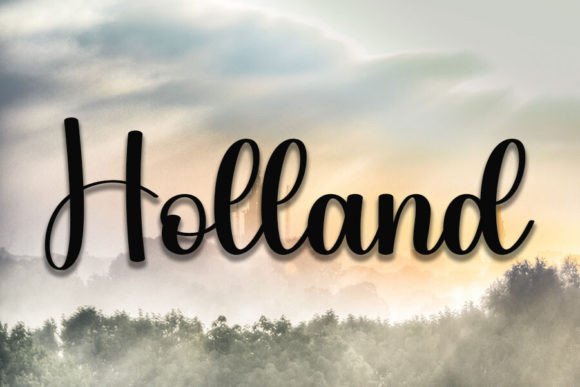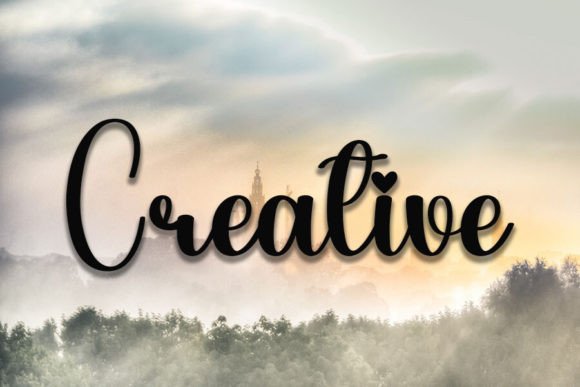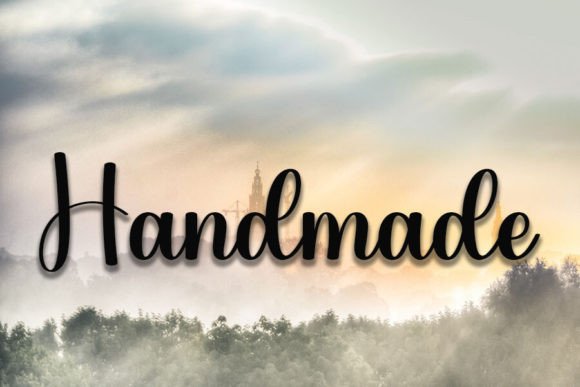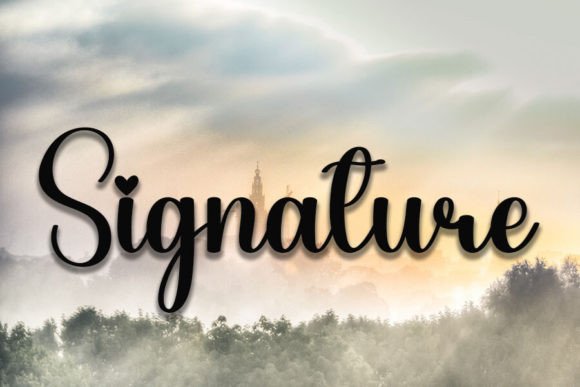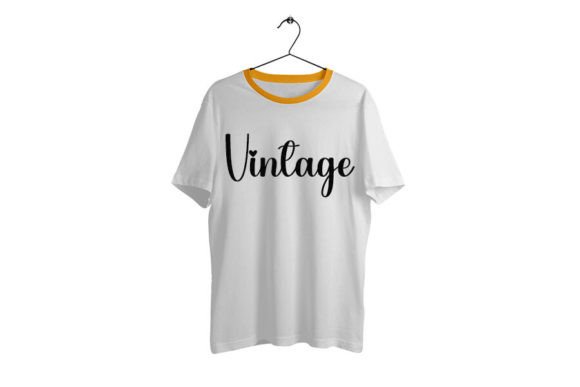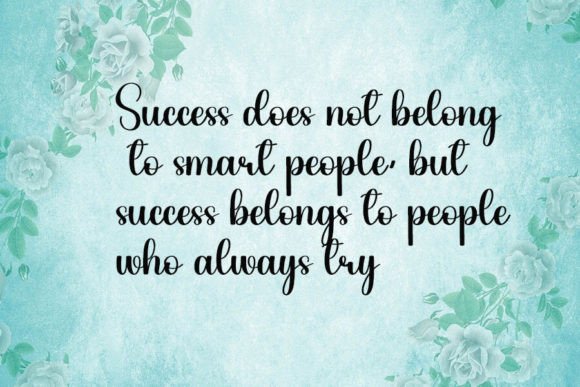
Discover the Elegance of Belanda Font: Elevate Your Designs with Timeless Style
Are you on the hunt for a font that exudes elegance, sophistication, and a touch of handmade charm? Look no further than the Belanda Font, a stunning handwritten typeface that is sure to capture your heart. With its incredibly distinct and timeless style, Belanda is the perfect addition to any design project, from crafting and stationery to digital media and branding.
The Characteristics of Belanda Font
Belanda Font is described by its neat and beautiful handwritten aesthetic, characterized by an elegant touch that sets it apart from other fonts. Its unique style is both classic and modern, making it versatile enough to be used in a wide range of applications. Whether you’re creating wedding invitations, packaging, or social media graphics, Belanda’s charm and sophistication will shine through.
Why Designers and Crafters Love Belanda
So, what makes Belanda Font a favorite among designers and crafters? Here are just a few reasons why this font has become a go-to choice for creatives:
- Elegant and Refined: Belanda’s elegant touch adds a level of sophistication to any design, making it perfect for projects that require a touch of luxury.
- Versatile: From digital media to print materials, Belanda’s versatility makes it suitable for a wide range of applications.
- Timeless: Unlike trendy fonts that quickly go out of style, Belanda’s classic aesthetic ensures it remains relevant and stylish for years to come.
- Easy to Read: Despite its elegant nature, Belanda remains clear and easy to read, making it perfect for body text and headings.
Using Belanda Font in Your Designs
One of the best things about Belanda Font is its ease of use. Whether you’re a seasoned designer or a crafting novice, incorporating Belanda into your projects is simple and straightforward. Here are a few ideas to get you started:
- Wedding Stationery: Add a touch of romance and elegance to your wedding invitations, save-the-dates, and thank-you cards.
- Branding and Packaging: Use Belanda to create eye-catching logos, labels, and packaging that stands out from the crowd.
- Digital Media: Incorporate Belanda into your social media graphics, blog headers, and email newsletters for a professional and stylish look.
- Crafting and Scrapbooking: Add a personal touch to your crafting and scrapbooking projects with Belanda’s beautiful handwritten aesthetic.
Tips for Getting the Most Out of Belanda Font
To truly make the most of Belanda Font, here are a few tips to keep in mind:
- Experiment with Pairings: Combine Belanda with other fonts to create unique and visually appealing combinations.
- Play with Size and Color: Don’t be afraid to experiment with different sizes and colors to add depth and interest to your designs.
- Use it Consistently: For branding and marketing materials, use Belanda consistently to create a cohesive and recognizable visual identity.
In conclusion, Belanda Font is a beautiful and elegant handwritten typeface that is sure to capture your heart. With its timeless style, versatility, and ease of use, it’s the perfect addition to any design project. Whether you’re a designer, crafter, or DIY enthusiast, Belanda is sure to become a favorite in your font collection. So why wait? Fall in love with Belanda’s incredibly distinct and timeless style, and use it to create spectacular designs that stand out from the crowd!